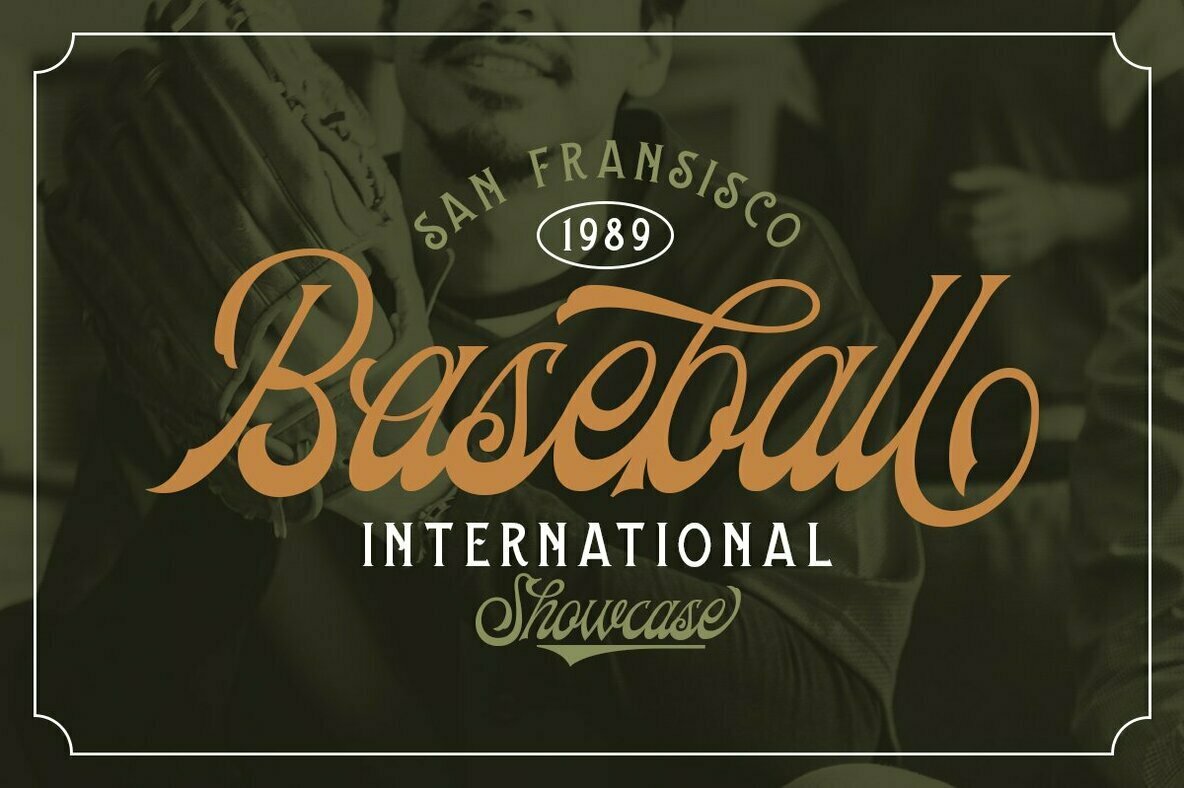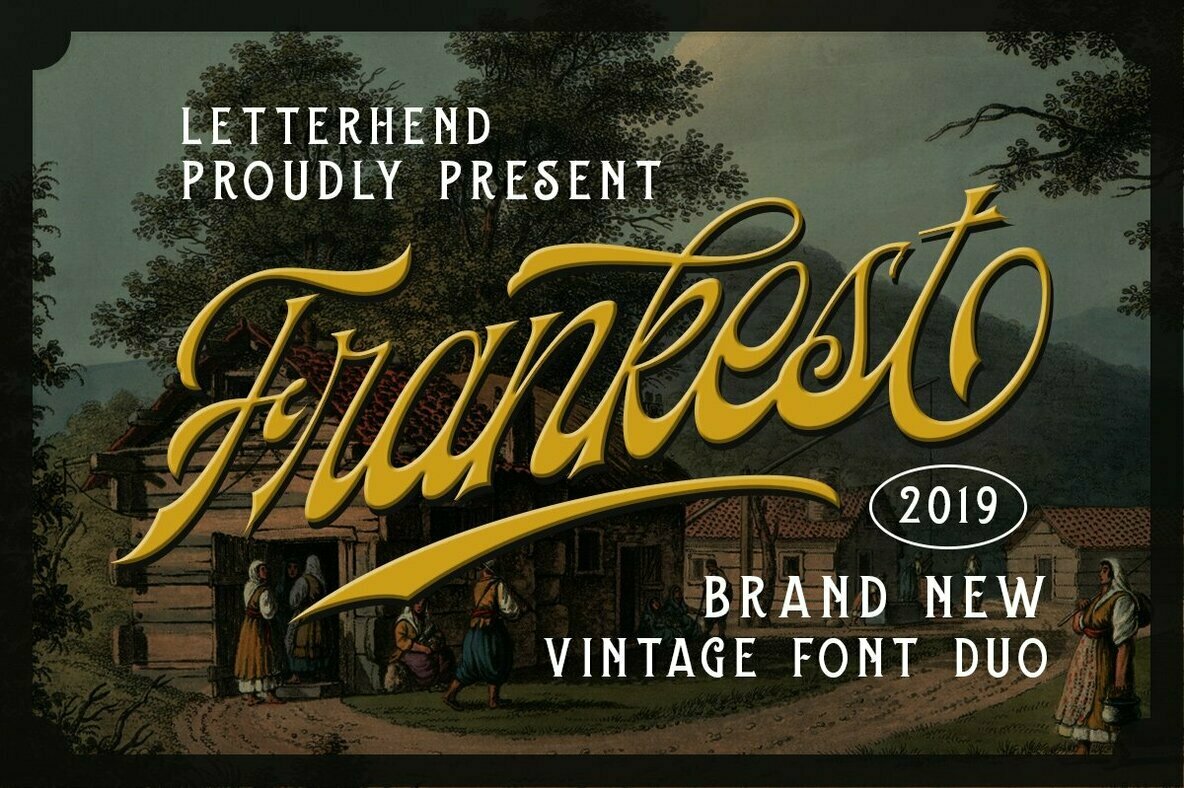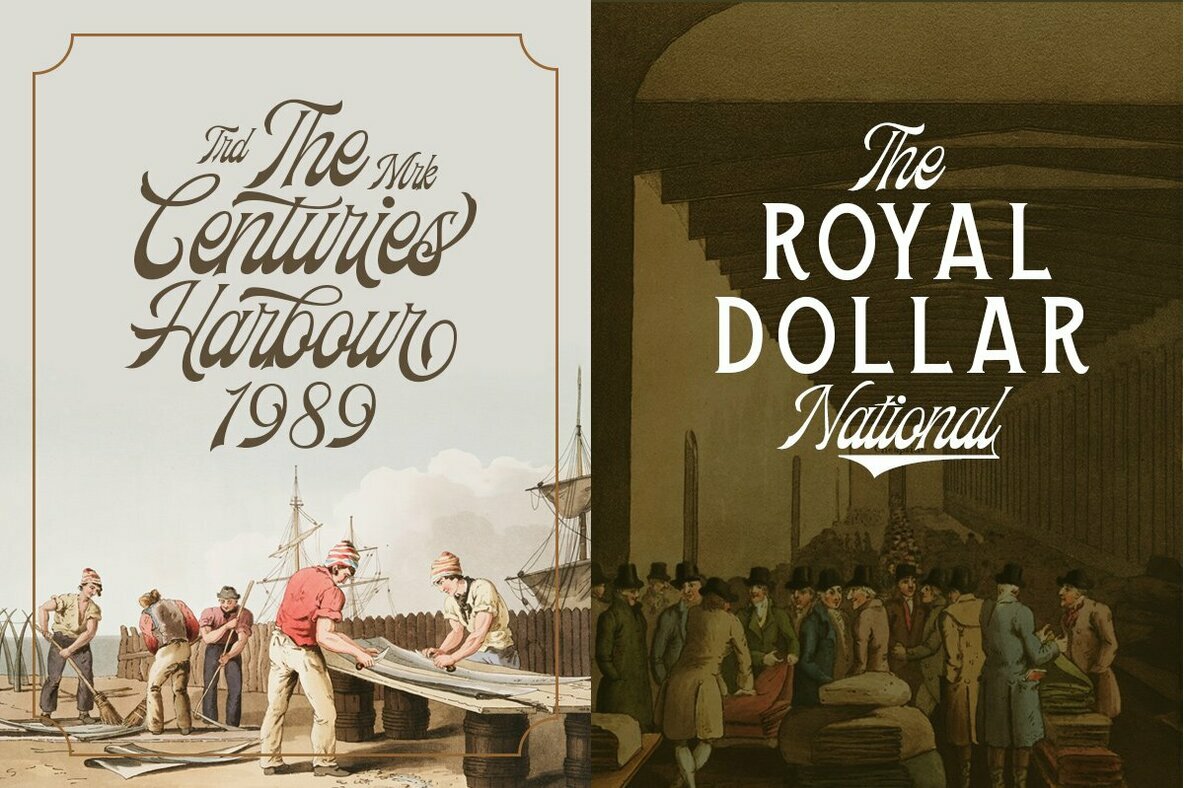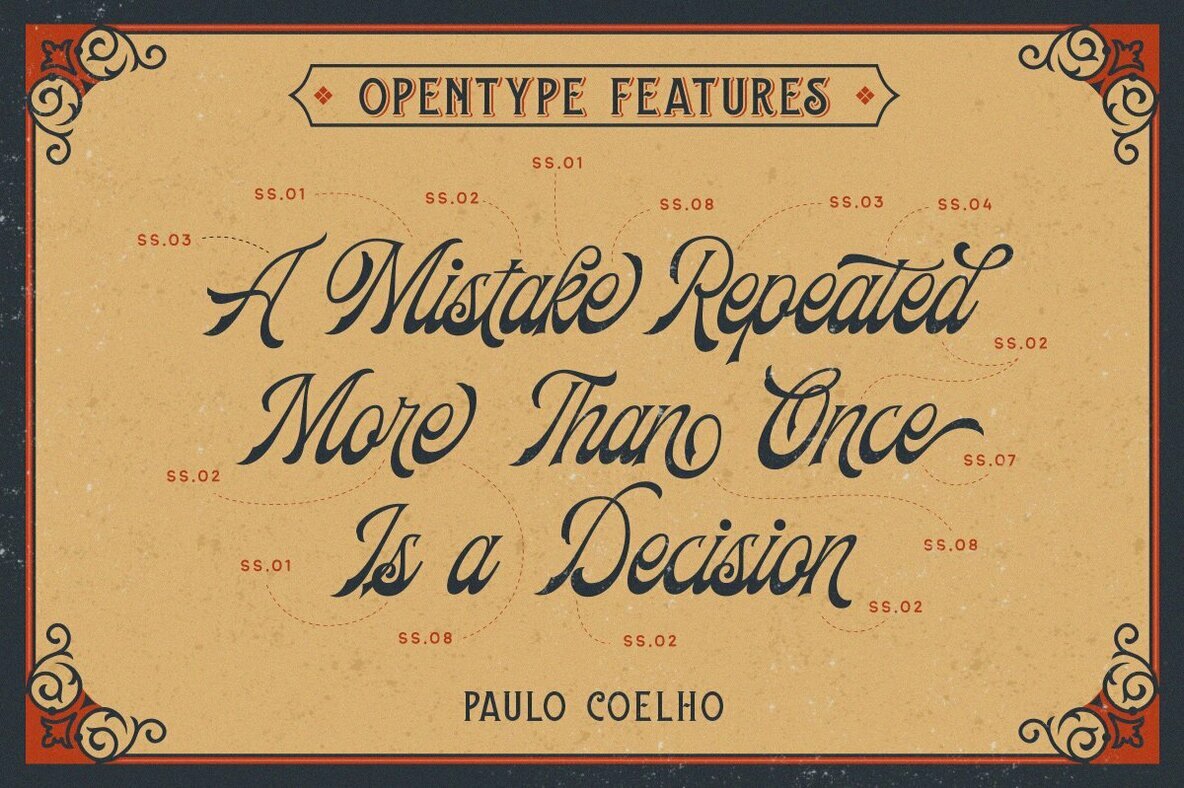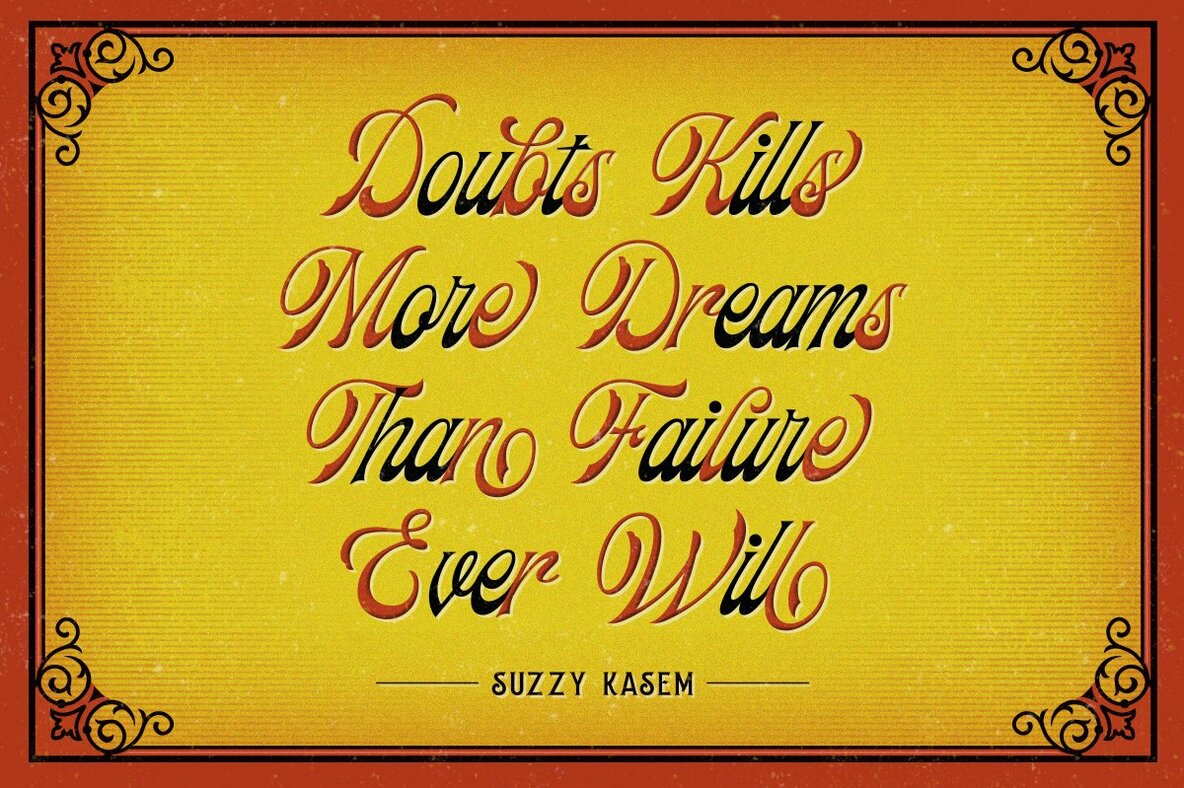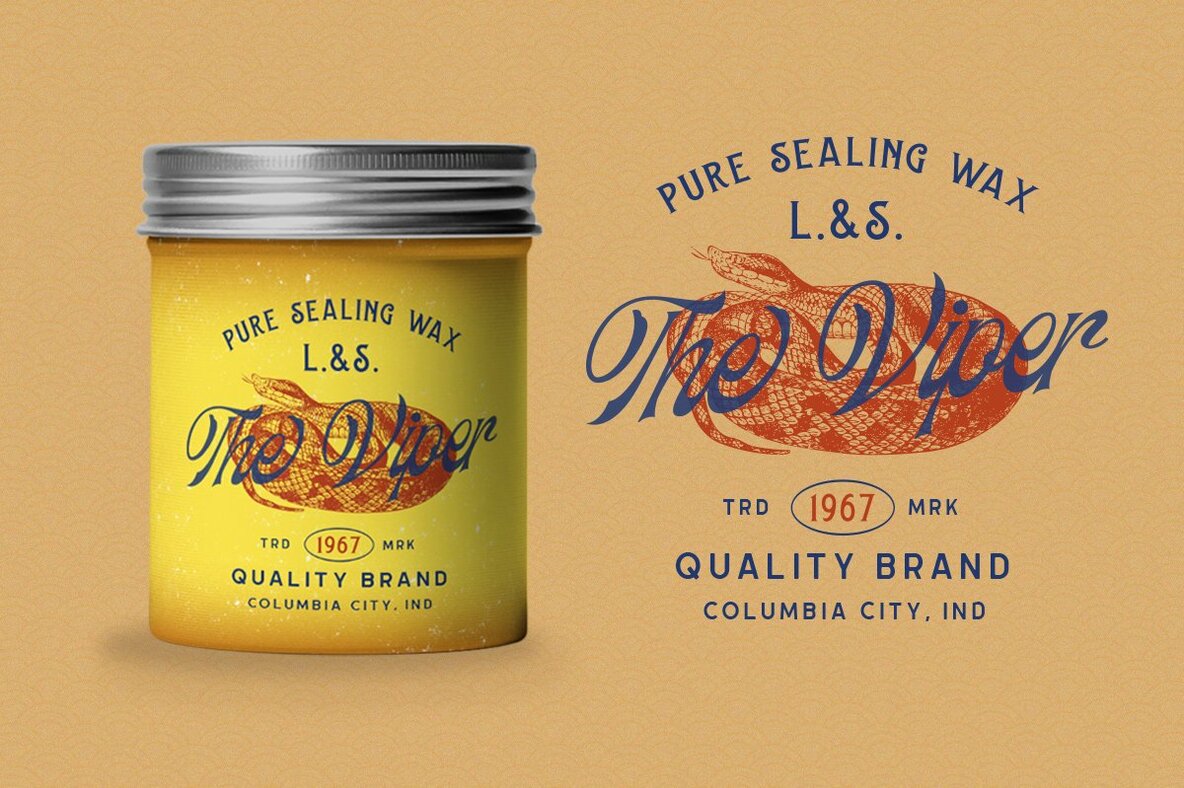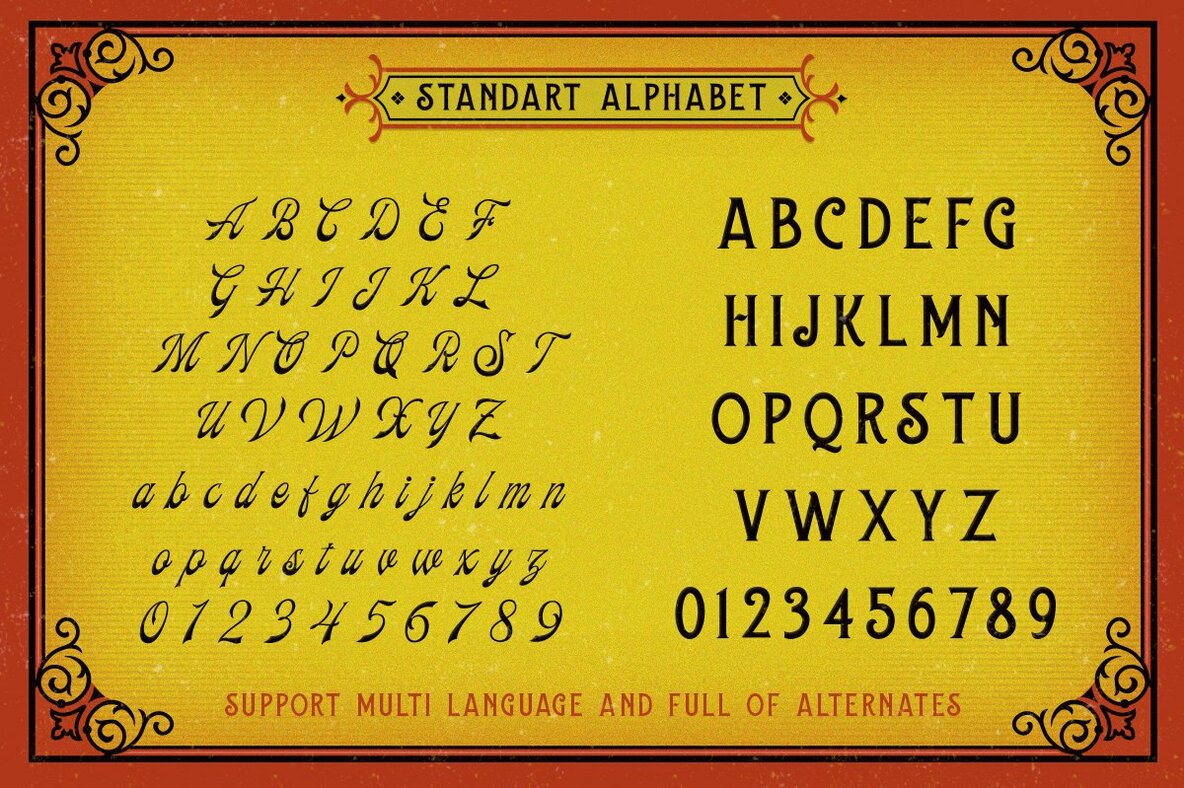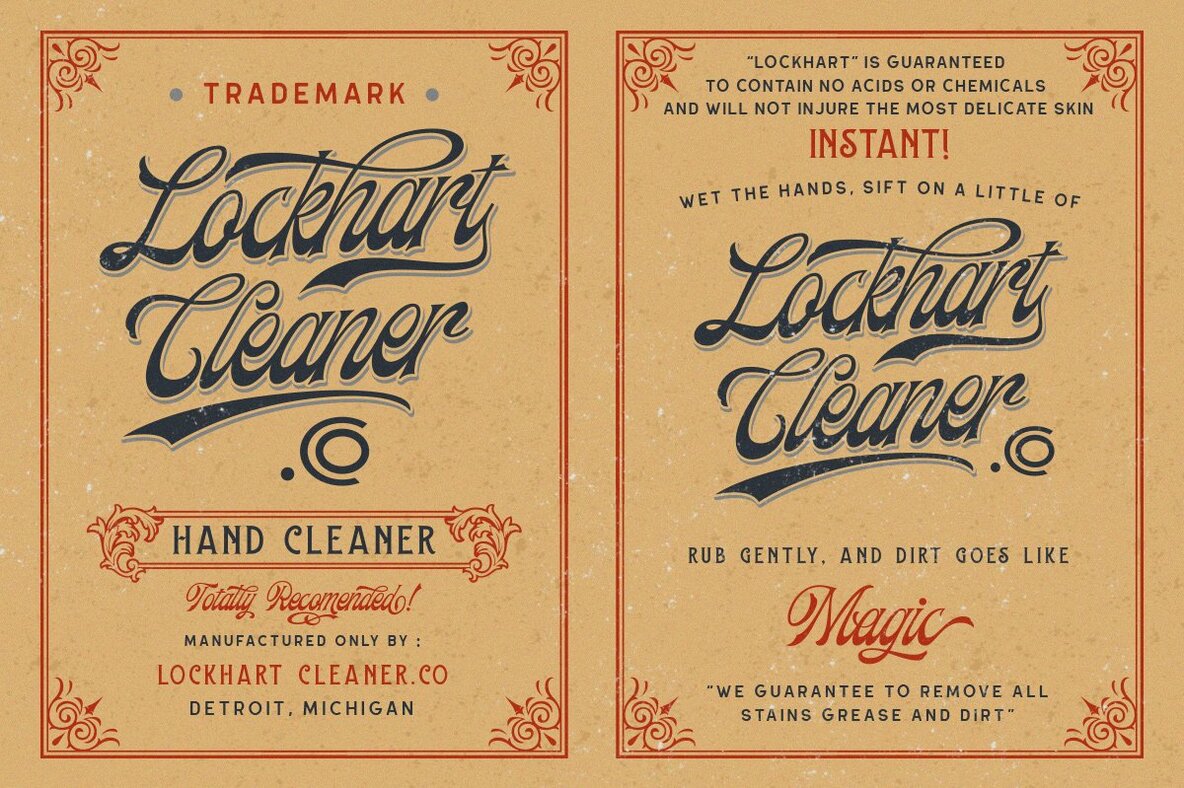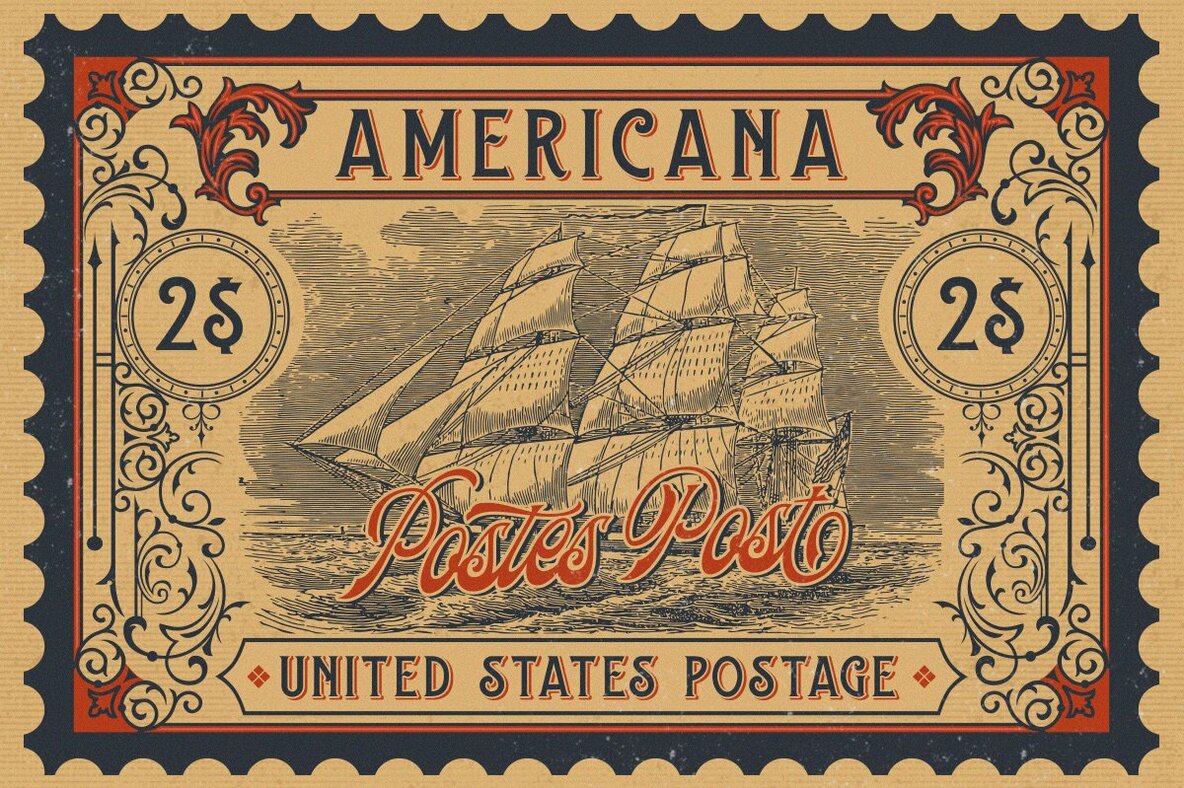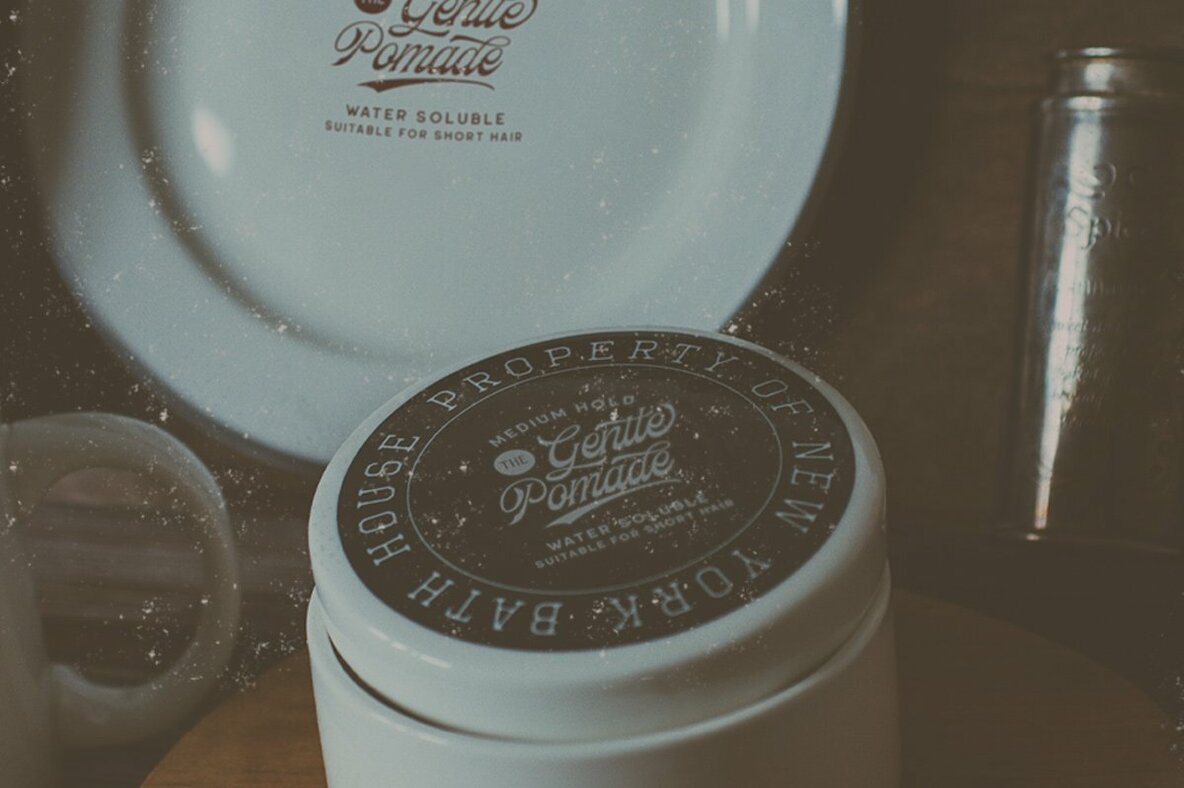
Frankest Font
The Frankest Font Duo by Letterhend Studio brings a nostalgic touch to your designs, ideal for logotypes, headlines, apparel, and posters that seek a vintage aesthetic. Integrating both script and serif styles, this combination ensures versatility in creative projects. Features:Frankest: A Vintage Font Duo for Diverse Applications